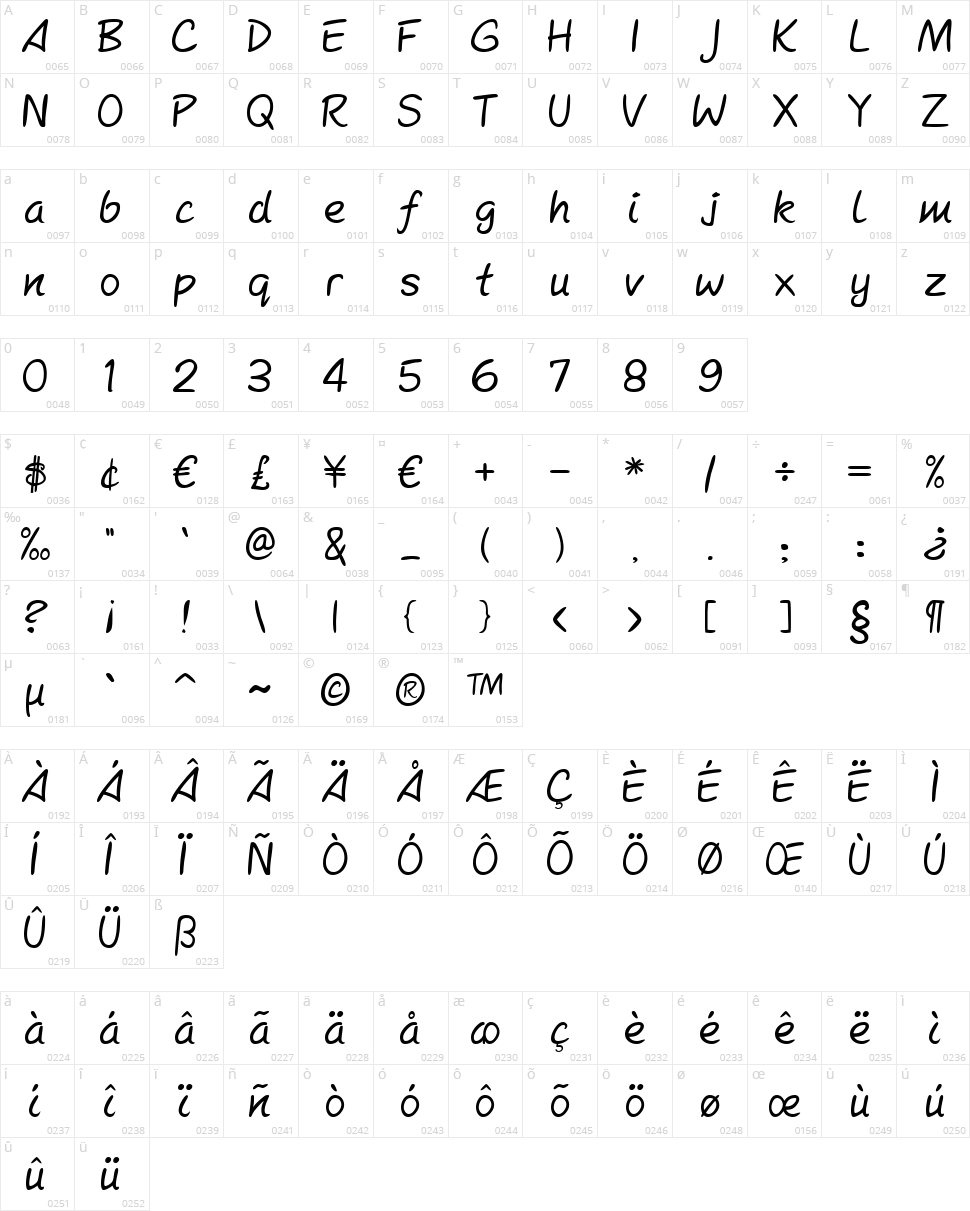
Mcgannahan
Mcgannahan A Dogstar Font
Mcgannahan is a fully featured TrueType font, with over 200 characters (upper and lower case, numerals, foreign characters, punctuation and symbols), based on the hand lettering/printing style of the cartoonist, comix creator and illustrator Graham Higgins. It is available for both the Windows and Macintosh platforms.
# Please Note The generic currency symbol ASCII 219 (Mac shiftoption 2 and Windows ALT+0164) has been replaced by the EURO (the new pan european single currency) symbol.